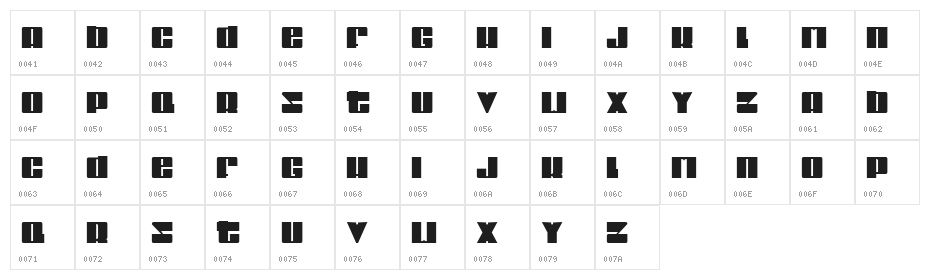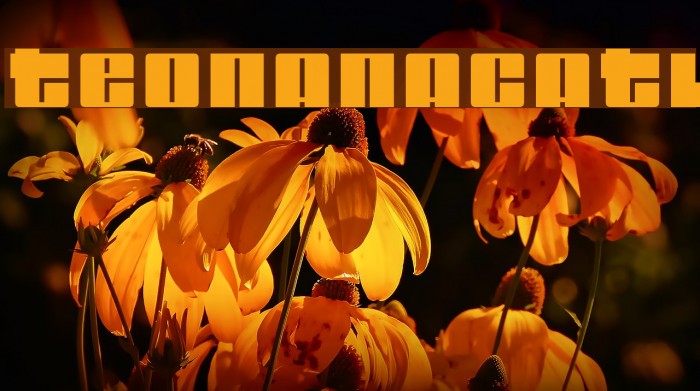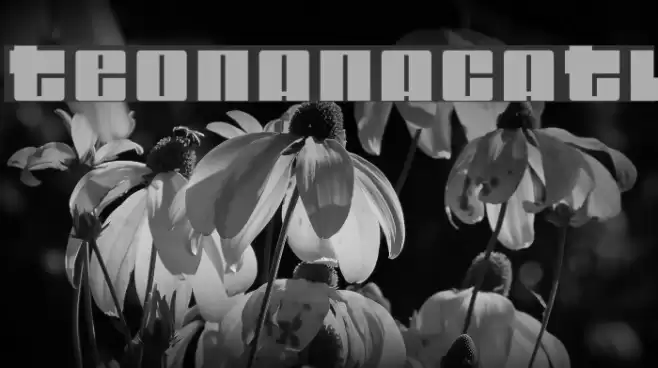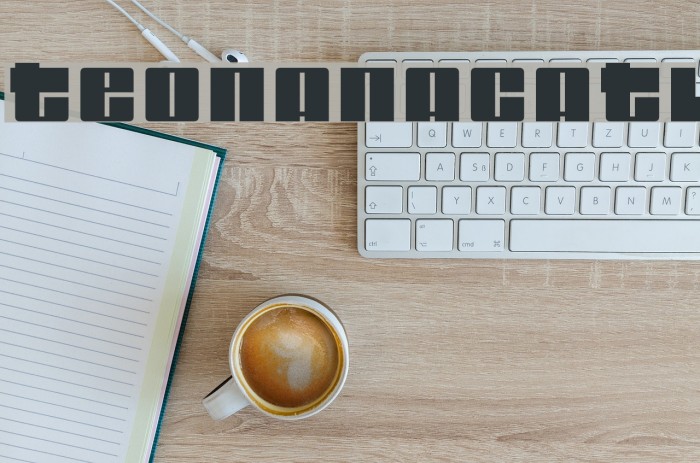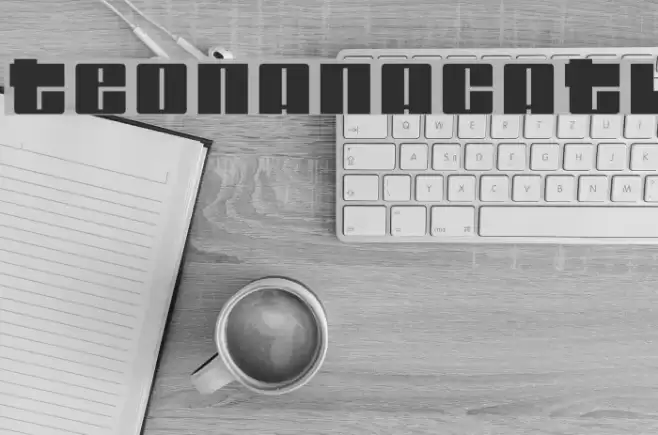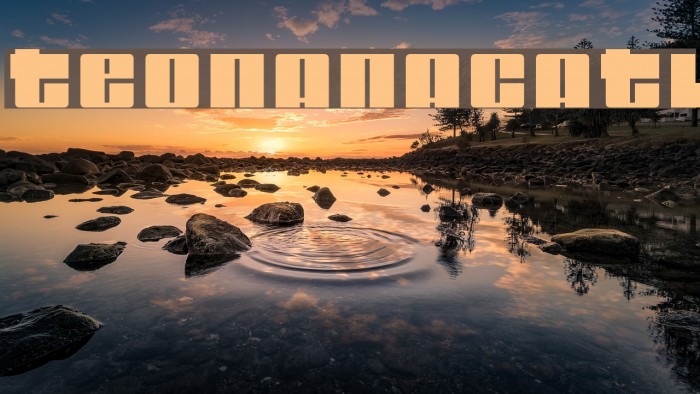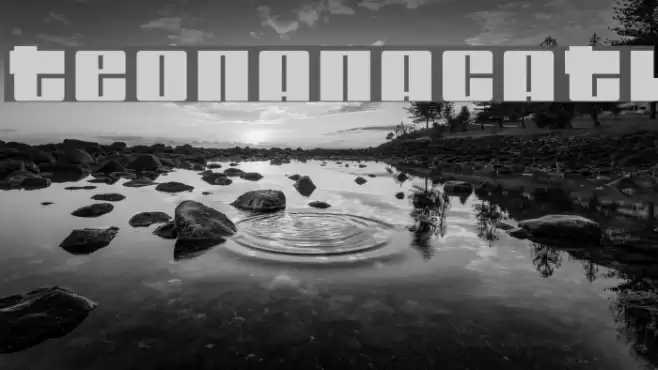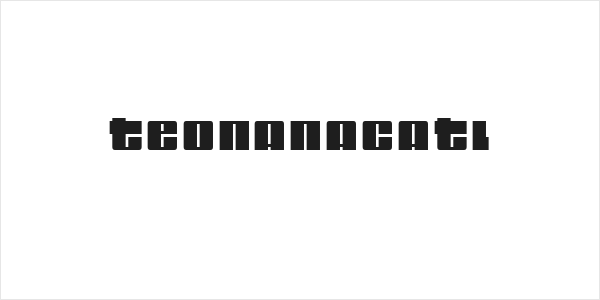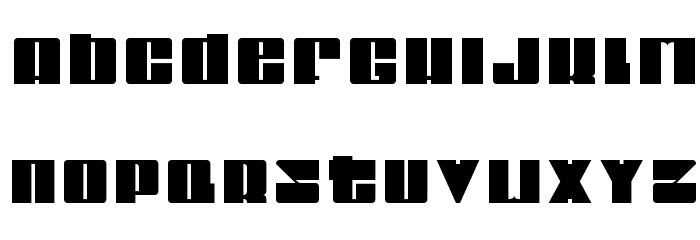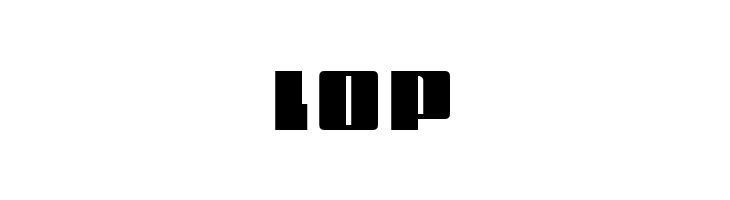
teonanacatl Font
teonanacatl Description
This font features a bold, geometric design with strong, angular lines and a modern aesthetic. The uppercase and lowercase letters share a consistent blocky style, creating a cohesive look. The characters are uniformly wide, giving the font a monospaced appearance, although it is not strictly monospaced. The numbers and special characters maintain the same bold and angular style, ensuring visual consistency across all glyphs. The font's unique design makes it stand out, with a futuristic and industrial feel that is both striking and versatile.